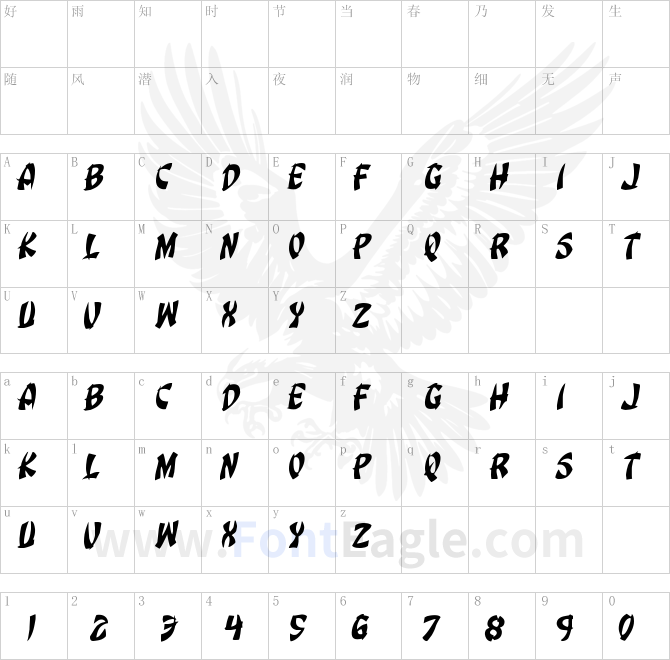
Egg-Roll-Rotalic is a great font, widely used in graphic design, single-page menu design, poster design and other fields, and is deeply loved by designers.Egg-Roll-Rotalic download.